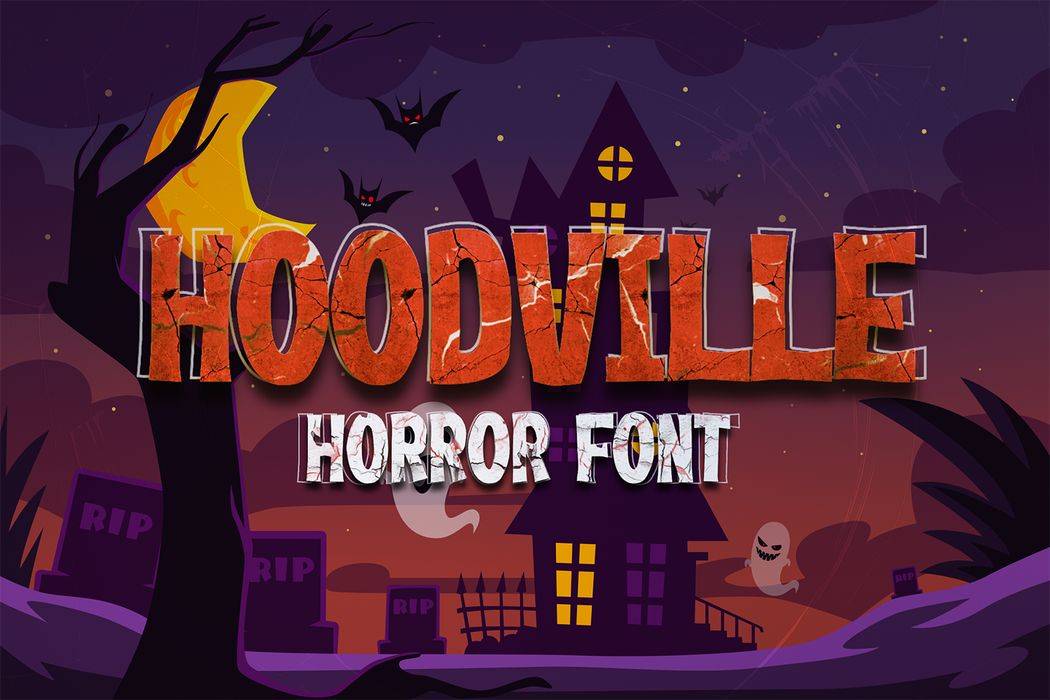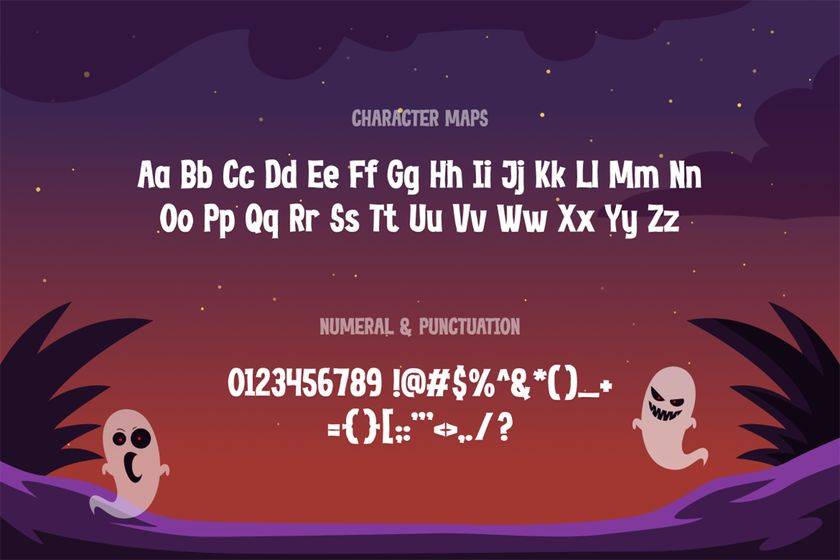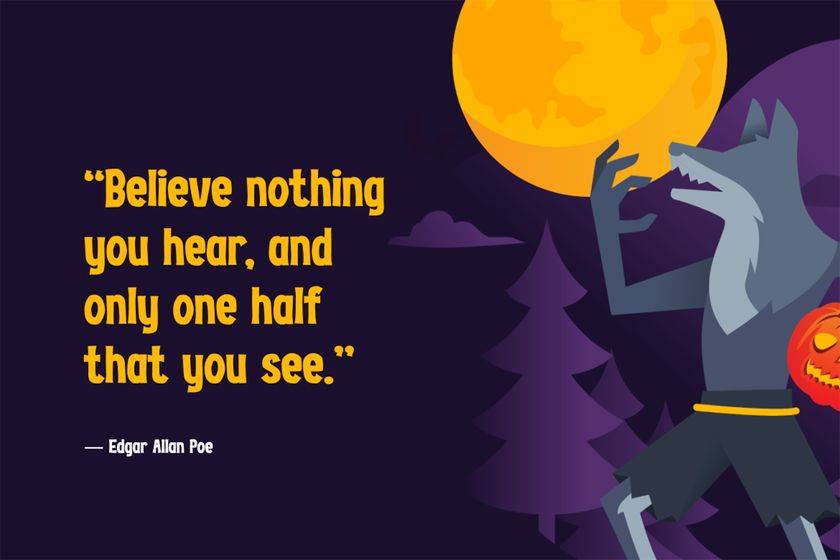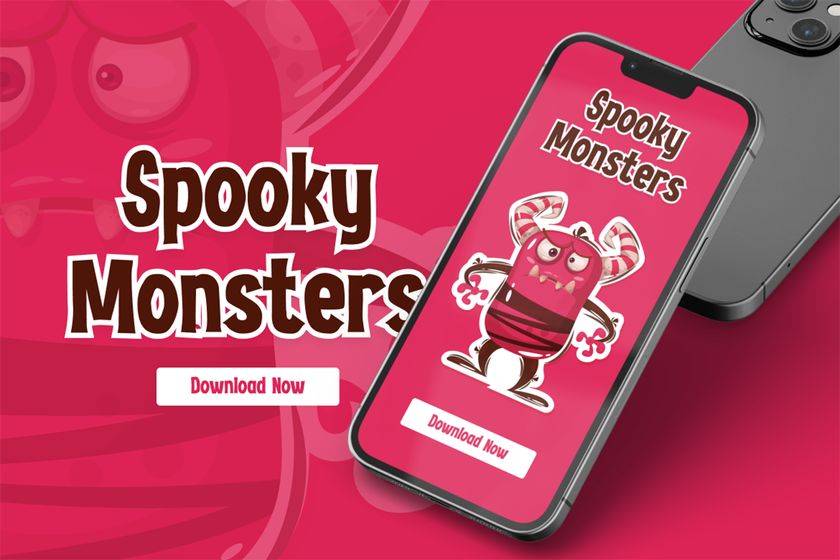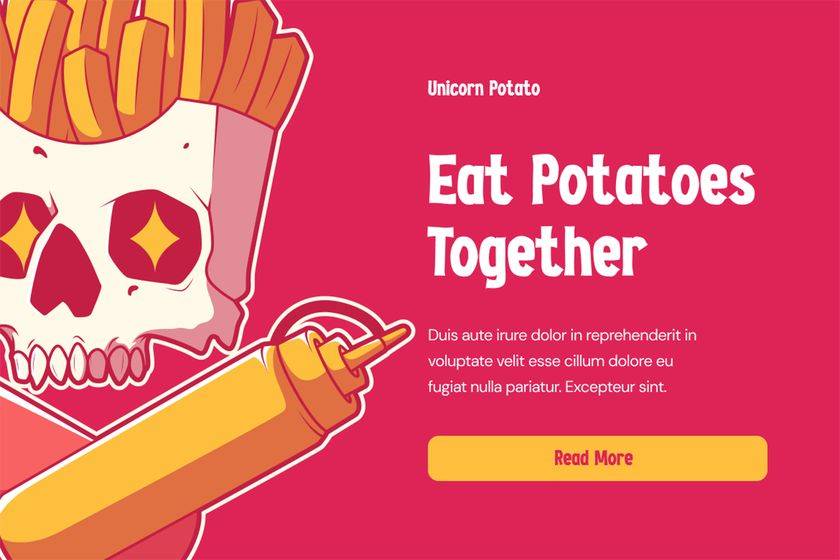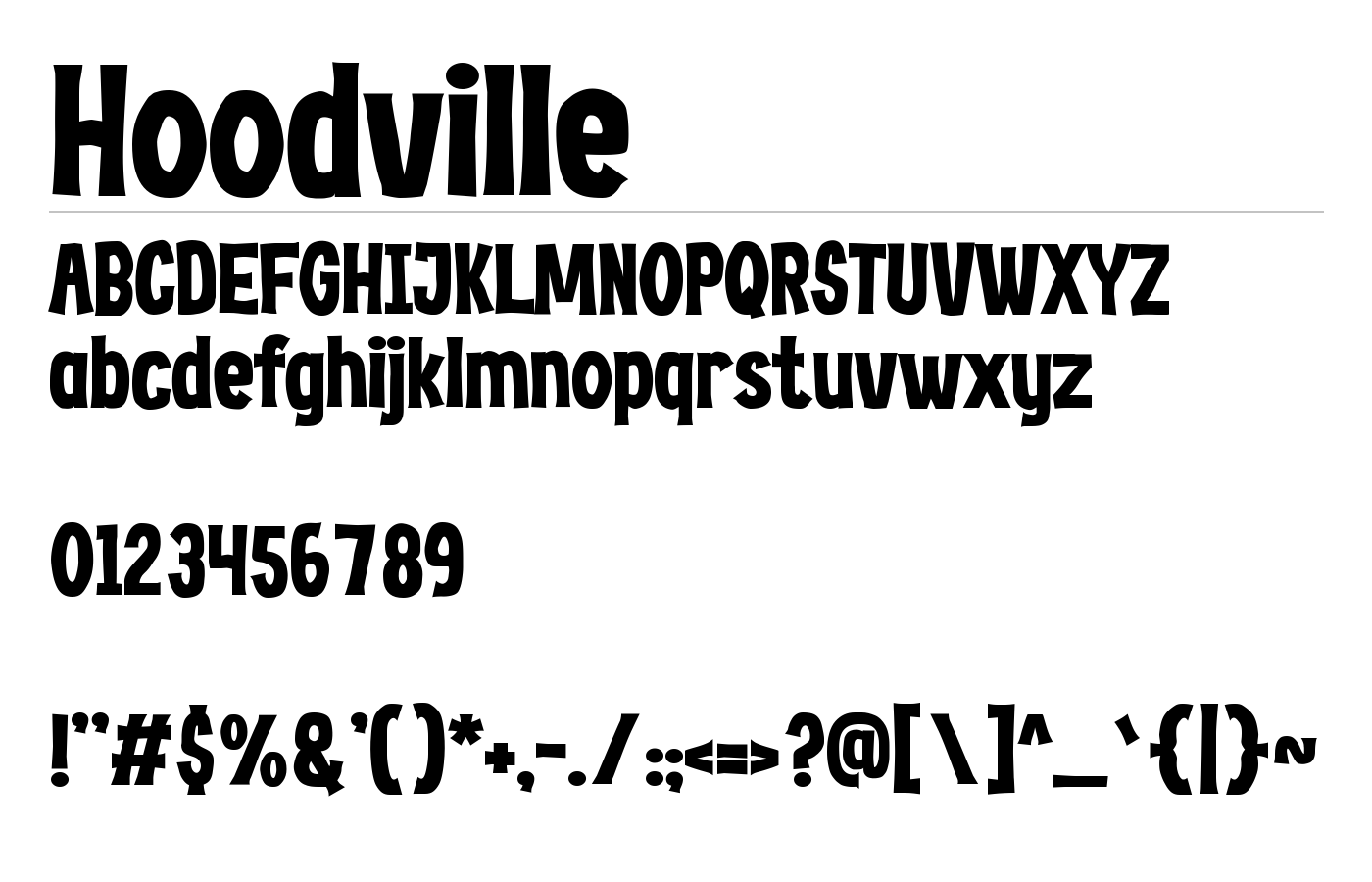
Hoodville is a bold, quirky sans serif font with a playful and slightly irregular design that gives it a hand-crafted, animated feel. Its tall, chunky letterforms and uneven strokes bring a fun, casual personality, making it ideal for eye-catching headlines, posters, and branding that seeks a friendly, energetic vibe. This font works well in creative projects that want to stand out with a unique, approachable style.
Hoodville Font
About Hoodville Font